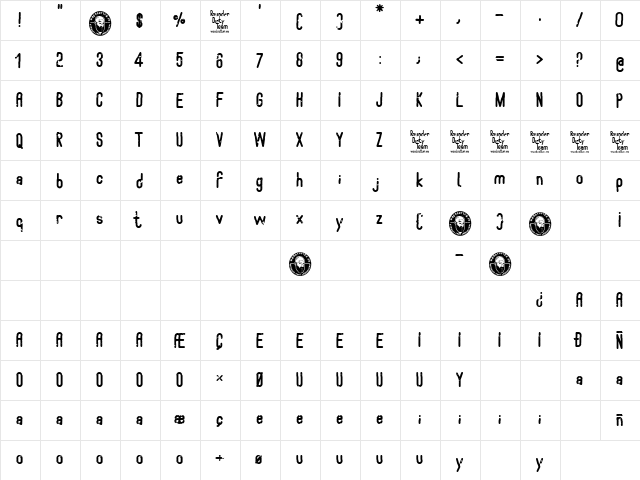
Rounder Dirty Team Regular
Design Context for Rounder Dirty Team Typeface
Rounder Dirty Team softens its letterforms with rounded terminals, giving it an approachable, friendly quality that works well in consumer-facing and digital contexts.
A natural fit for tech startups, health and wellness brands, children's products, and friendly consumer apps.
Font Pairing: Pairs well with a rounded or humanist sans for body copy, maintaining the friendly tone without relying on Rounder Dirty Team to carry extended reading.
Pro Tip: Pair Rounder Dirty Team with a geometric sans for a balanced system — the rounded softness works as a warm counterpoint to harder-edged companions.